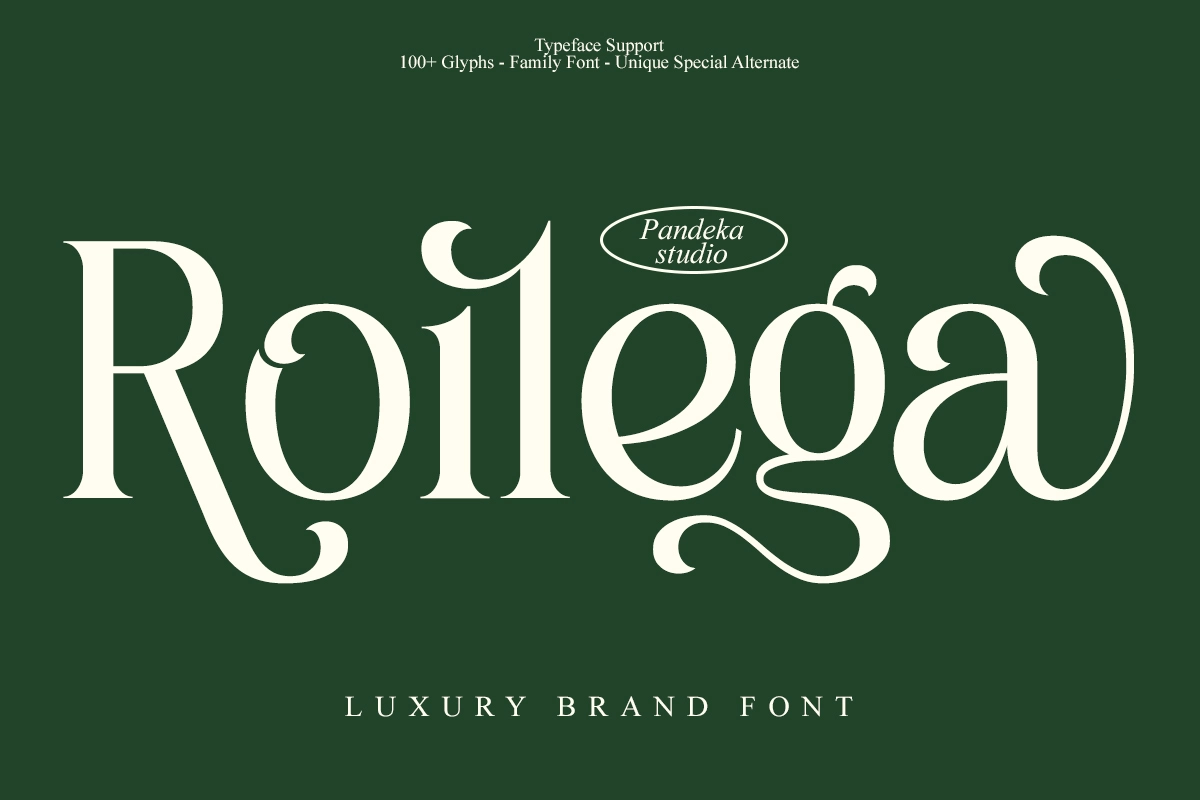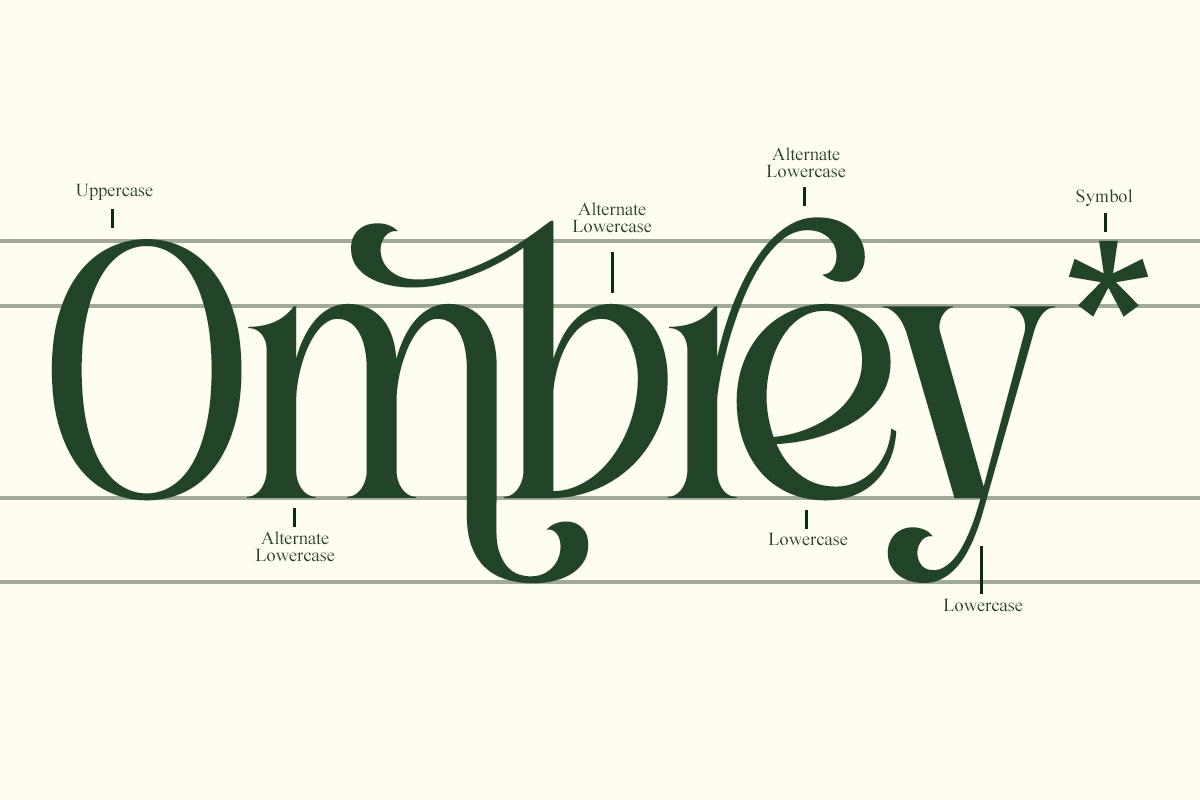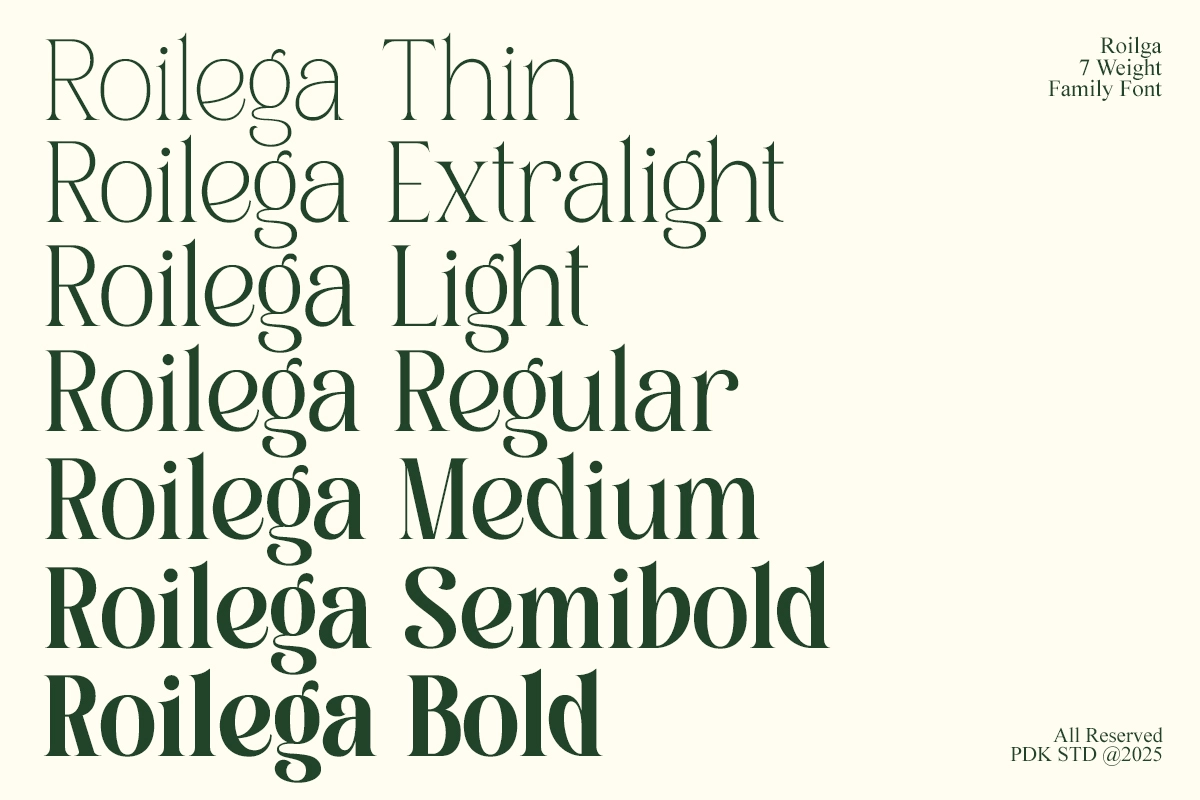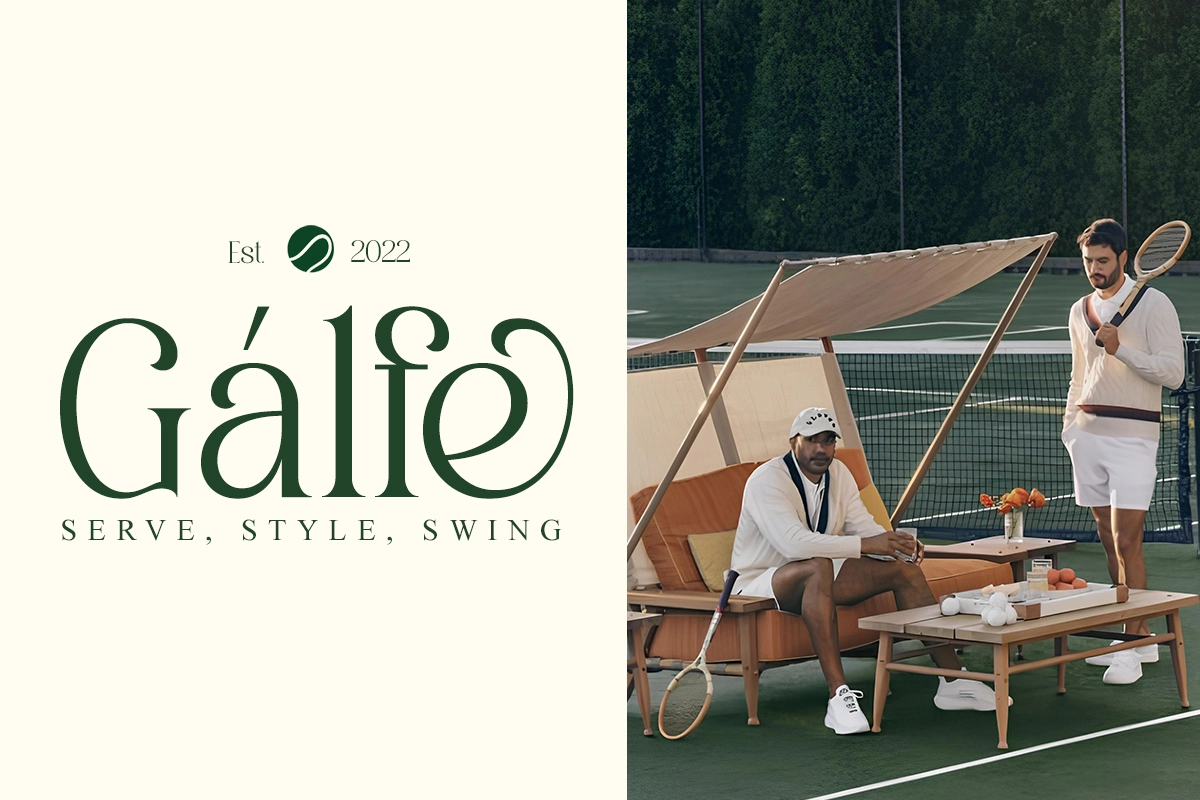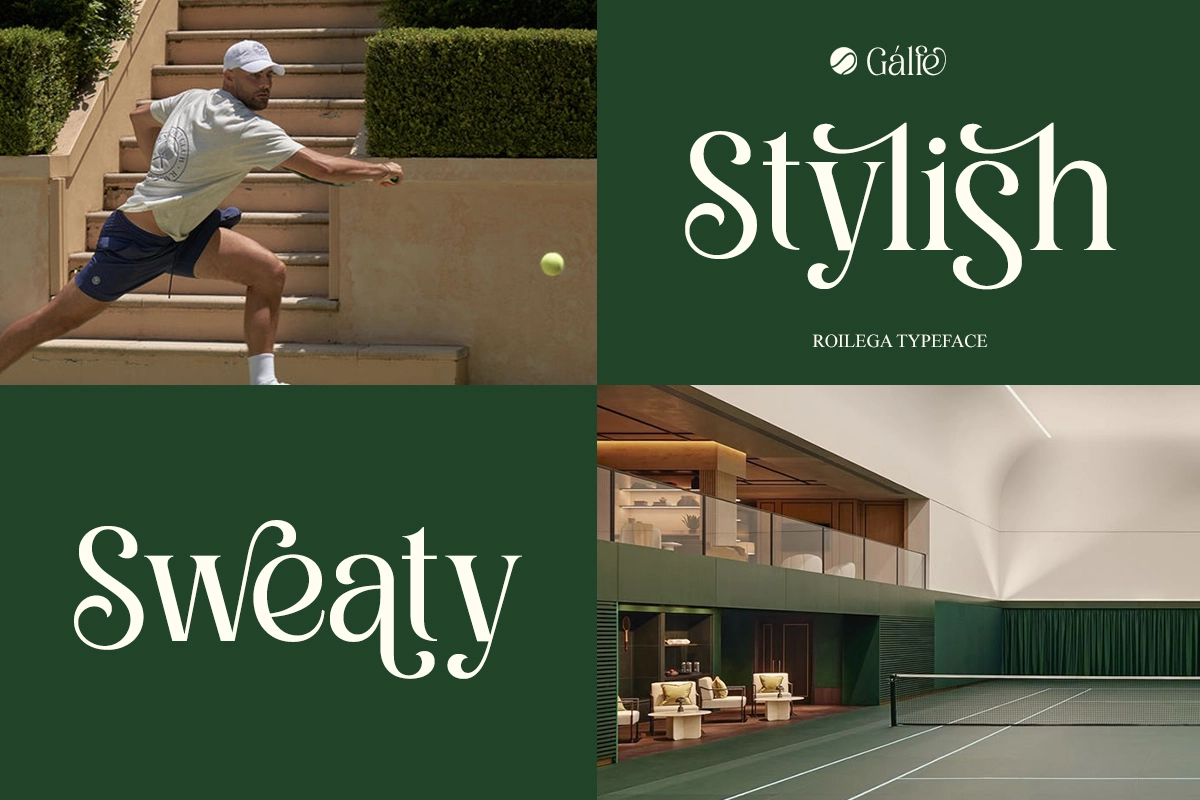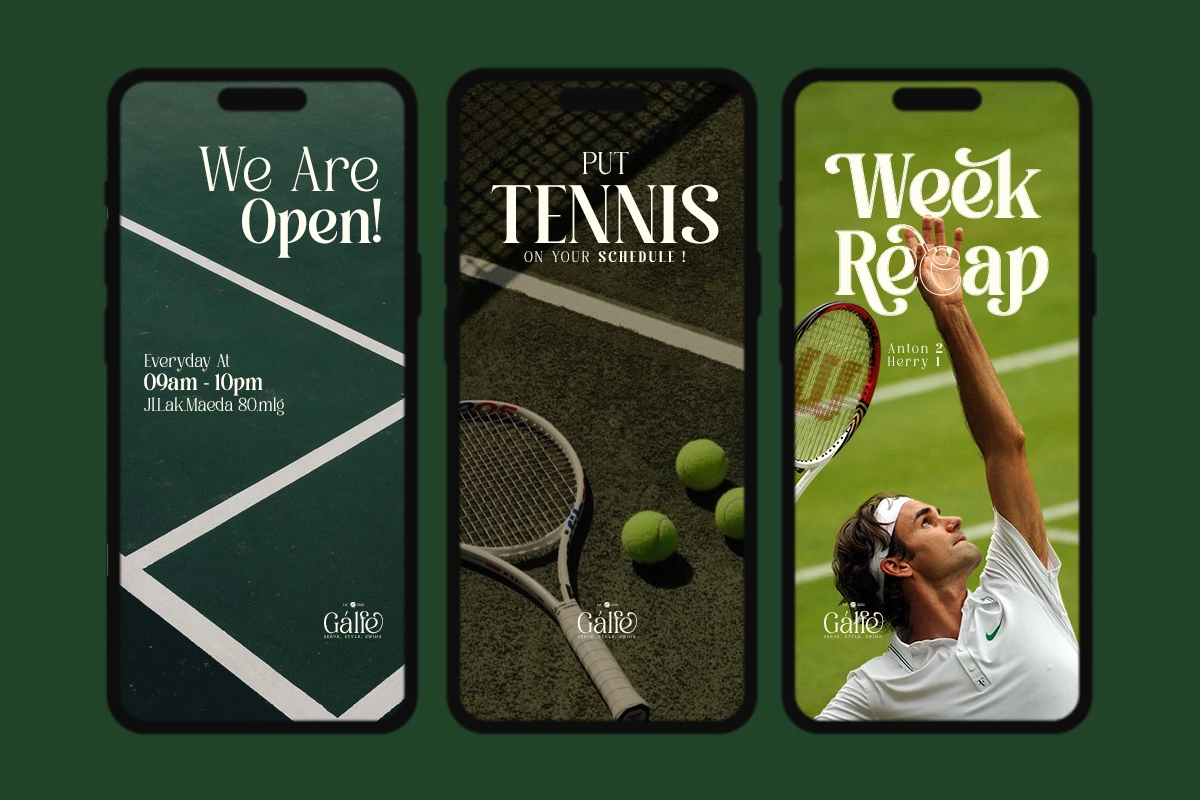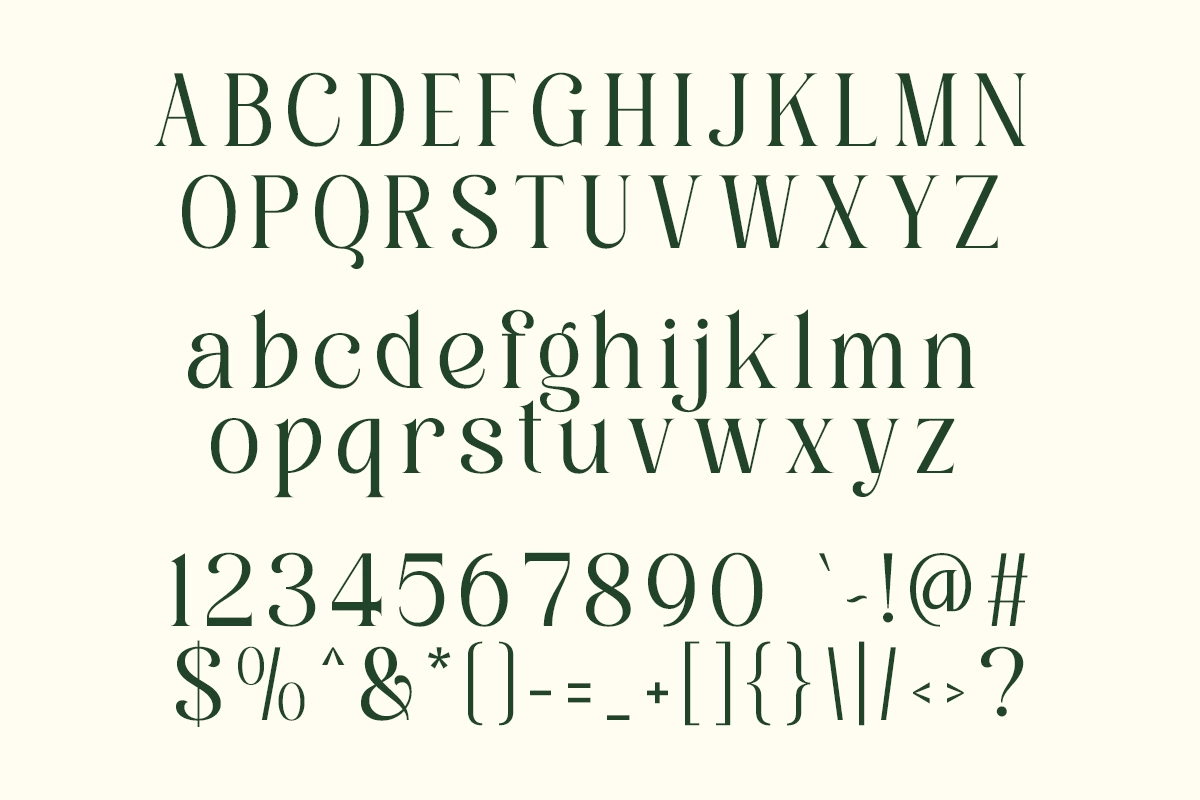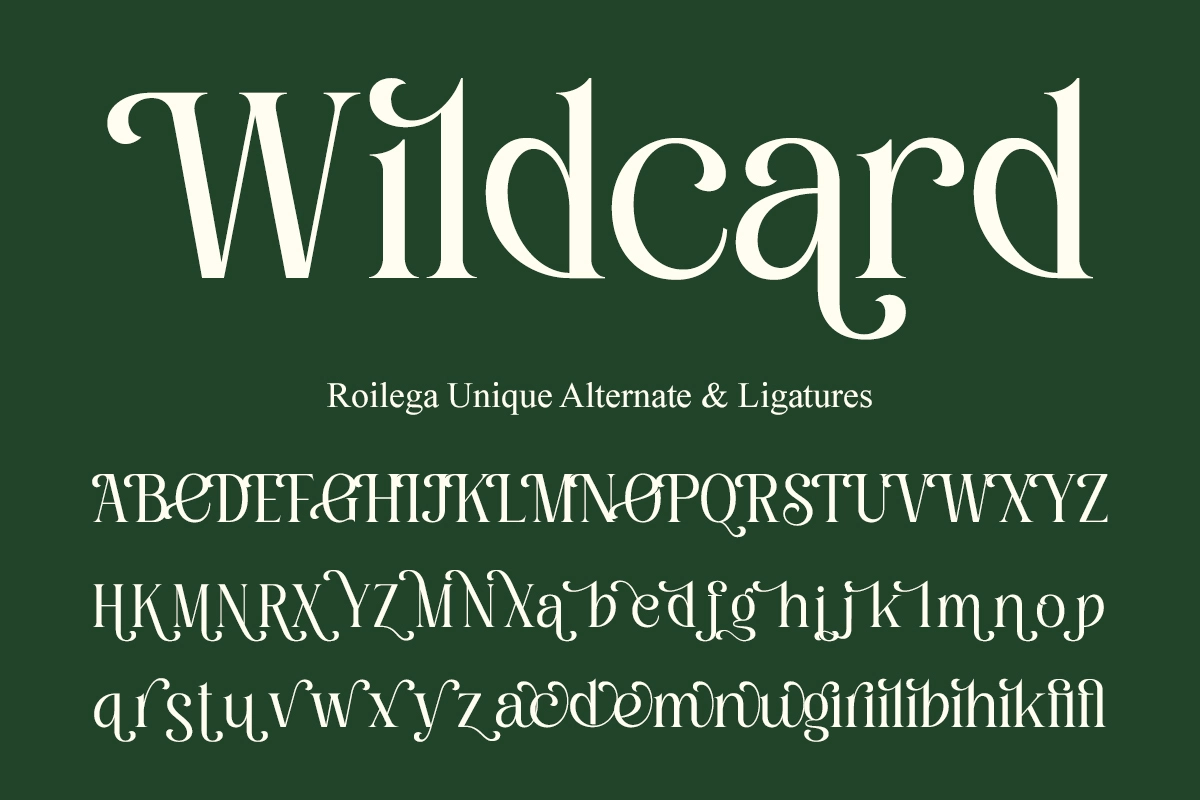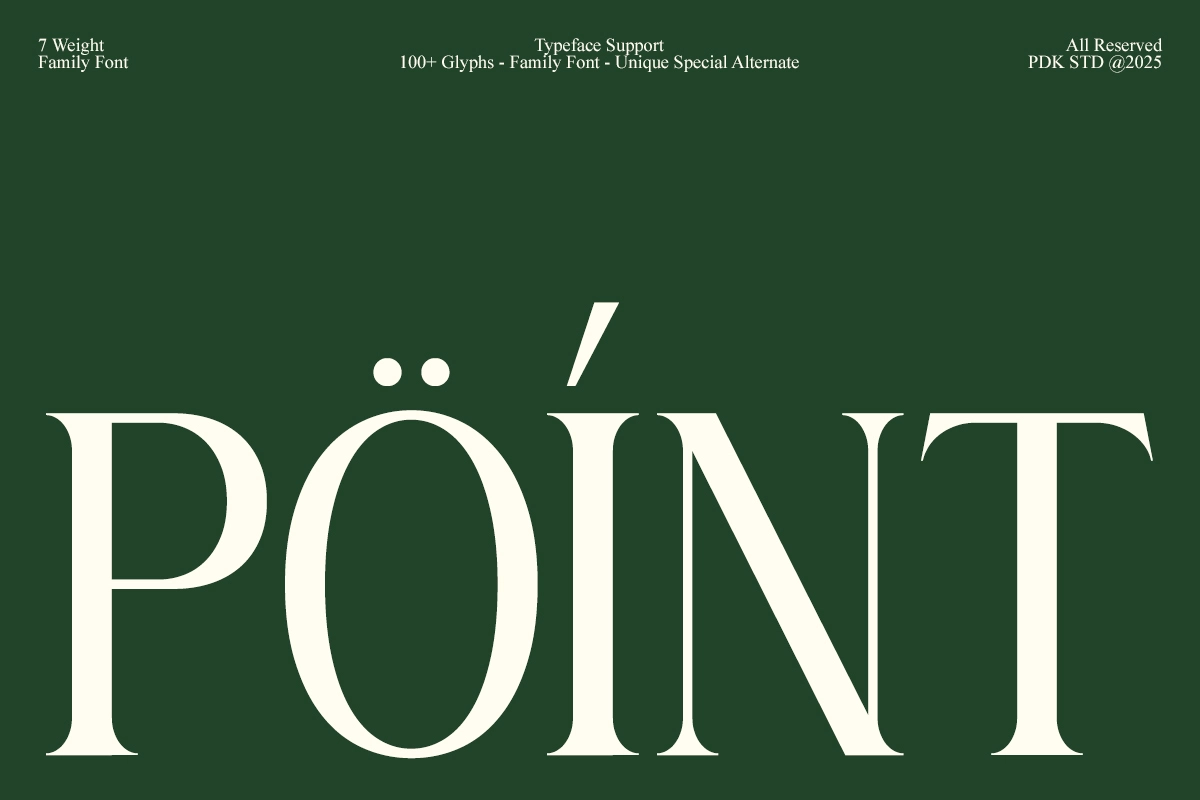
Roilega - Elegant Luxury Serif Family Font
A luxury serif font built on high-contrast strokes and long, curling terminals — the R, the g, and every descender loop back on themselves like a hand-finished flourish. The lowercase repeats that movement, and 68+ stylistic alternates and ligatures swap in curlier forms for letters like a, b, e, g, and y wherever a title wants more personality.
Roilega works best in headline and branding sets where the curling terminals get room to open up — logotypes, packaging typography, editorial titles set large. Use it for boutique branding, perfume and cosmetic packaging, fashion logotypes, hotel and hospitality wordmarks, wedding invitation suites, magazine mastheads, jewelry branding, gift box lettering, website hero headlines, and social campaign titles.
• 68+ stylistic alternates and ligatures;